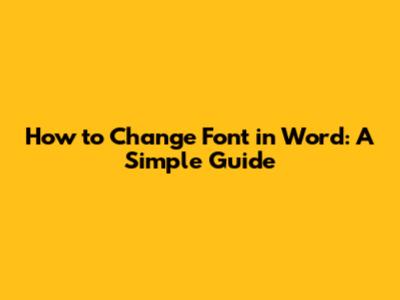
Hey guys! Ever found yourself staring at a Word document, utterly baffled by how to change the font on just one page? Don't worry; you're definitely not alone. It’s a common head-scratcher, but trust me, it’s easier than you think. This guide will walk you through the process step-by-step, ensuring you can customize your fonts exactly how you want them. Whether you're working on a report, a novel, or just a simple letter, mastering font changes is a fundamental skill for any Word user.
Why Change Fonts in Word?
Before we dive into the how-to, let's quickly touch on why you might want to change fonts in the first place. Fonts aren't just about aesthetics; they play a crucial role in readability and conveying the right tone. A formal report might call for a classic, professional font like Times New Roman or Arial, while a creative project might benefit from something more unique and eye-catching, like Calibri or even Comic Sans (use with caution, folks!). Furthermore, consistency is key in professional documents. Changing fonts can help you highlight different sections, emphasize important information, or simply break up the monotony of a long document. Think of it like this: the right font is like the perfect outfit for your words, making them look their best and ensuring they make the right impression. So, whether you're aiming for clarity, style, or emphasis, understanding how to manipulate fonts is a game-changer. And trust me, once you get the hang of it, you'll wonder how you ever lived without this skill!
Understanding Sections and Breaks
The secret to changing fonts on specific pages in Word lies in understanding sections and breaks. Think of a section as a container that holds specific formatting settings. By default, a Word document is treated as one big section. However, when you insert a section break, you're essentially creating a new container where you can apply different formatting, including fonts, without affecting the rest of the document. There are different types of section breaks, but the most commonly used are Next Page, Continuous, Even Page, and Odd Page. The Next Page break starts the new section on the following page, which is perfect for major chapter divisions or when you want a completely fresh start. The Continuous break, on the other hand, starts the new section immediately on the same page, allowing you to change formatting mid-page. Understanding the purpose of each type of break is crucial for precise control over your document's layout. This is especially useful in longer documents like theses, reports, or books where you might need different headers, footers, or column layouts in different sections. So, before you even think about changing fonts, make sure you've got your sections and breaks sorted out. It's the foundation for all the font-tastic customization to come!
Step-by-Step Guide to Changing Fonts on a Single Page
Okay, let's get down to the nitty-gritty. Here’s how you can change the font on a single page in Word. Follow these steps closely, and you’ll be a font-changing wizard in no time!
Step 1: Insert Section Breaks
First things first, you need to insert section breaks before and after the page you want to modify. Place your cursor at the end of the page preceding the page you want to change. Go to the “Layout” tab (or “Page Layout” in older versions of Word) and click on “Breaks.” Choose “Next Page” if you want the new section to start on the following page, or “Continuous” if you want it to start on the same page. Now, repeat this process at the end of the page you want to change. This will effectively isolate the page within its own section, allowing you to make changes without affecting the surrounding pages.
Step 2: Deselect “Link to Previous”
This step is crucial! By default, sections in Word are linked, meaning any formatting changes you make in one section will automatically apply to the others. To prevent this, you need to unlink the header and footer of the section you're about to modify from the previous section. Double-click on the header or footer area of the page you've isolated. This will open the Header & Footer Tools Design tab. In this tab, you'll see an option called “Link to Previous.” Make sure this option is deselected. If it's highlighted, click on it to turn it off. Do this for both the header and the footer.
Step 3: Change the Font
Now for the fun part! Select the text on the isolated page that you want to change. Go to the “Home” tab and use the font dropdown menu to choose your desired font. You can also change the font size, color, and other formatting options from this tab. Because you’ve isolated the page within its own section and unlinked it from the previous section, these changes will only apply to the selected page. Voila! You’ve successfully changed the font on a single page in Word.
Changing Fonts in Specific Sections
Changing fonts in specific sections of your Word document is a breeze once you understand the concept of section breaks. So, you've got your document neatly divided into sections using those handy section breaks we talked about earlier. Now, let's say you want to apply a different font to a specific section, maybe to distinguish a chapter or highlight a particular part of your report. The process is straightforward. First, click anywhere within the section you want to modify. This tells Word, *